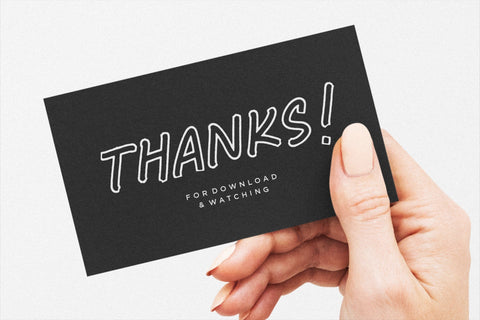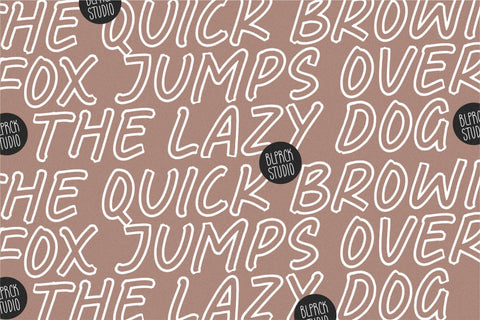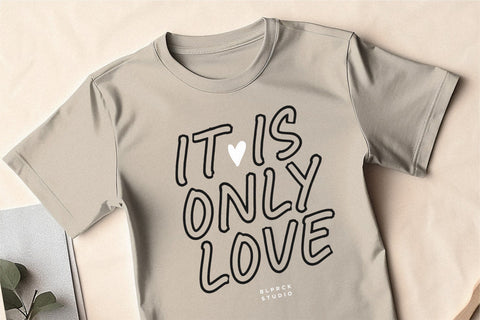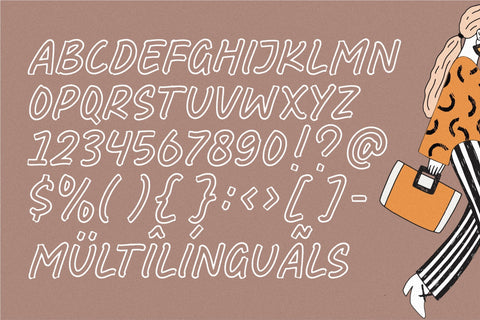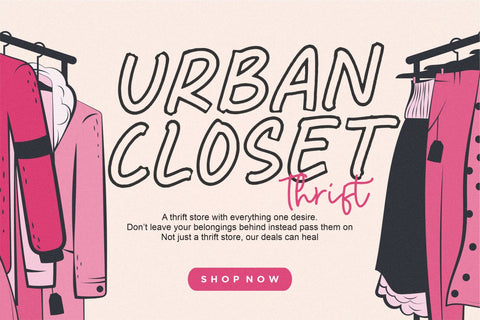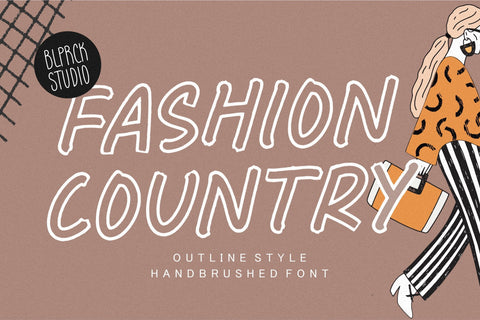
Fashion Country Font
Fashion Country is a outline style handbrushed font, meticulously crafted to deliver a distinct and captivating visual impact.
With our outline style handbrushed font, each letter is carefully hand-drawn, capturing the essence of the brush strokes to create an effortlessly stylish and modern look. The outline style adds a subtle yet striking touch, making your words stand out with an air of sophistication.
The unique characteristics of our handbrushed font make it ideal for a wide range of applications. Whether it's crafting eye-catching logos, designing captivating posters, or composing inspiring quotes, our font seamlessly integrates into your creative endeavors, leaving a lasting impression.
This font only has allcaps letters.